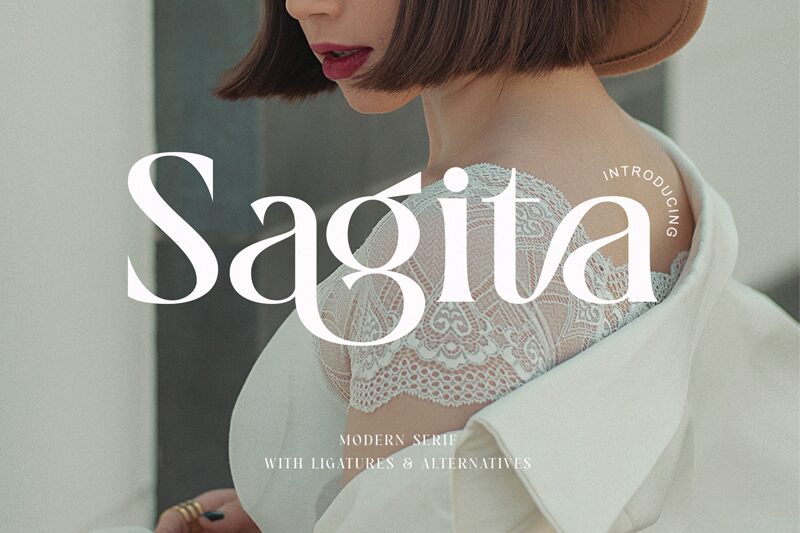
Sagita font family consists of 2 styles by Muflieart. A visually dominant and well-refined typography, this free font is made with different shapes and a complete variety of characters which enable a distinctive experience with every new work it creates whether the notice of the viewers is involuntary or not.
Sagita offers its elegance and distinct visuals while keeping the professional look you need to present books and designs, the latter of which can appear on book covers, CD covers, and posters. Use it for brand identity presentations and similar projects for this versatile font that captures the audience within seconds.